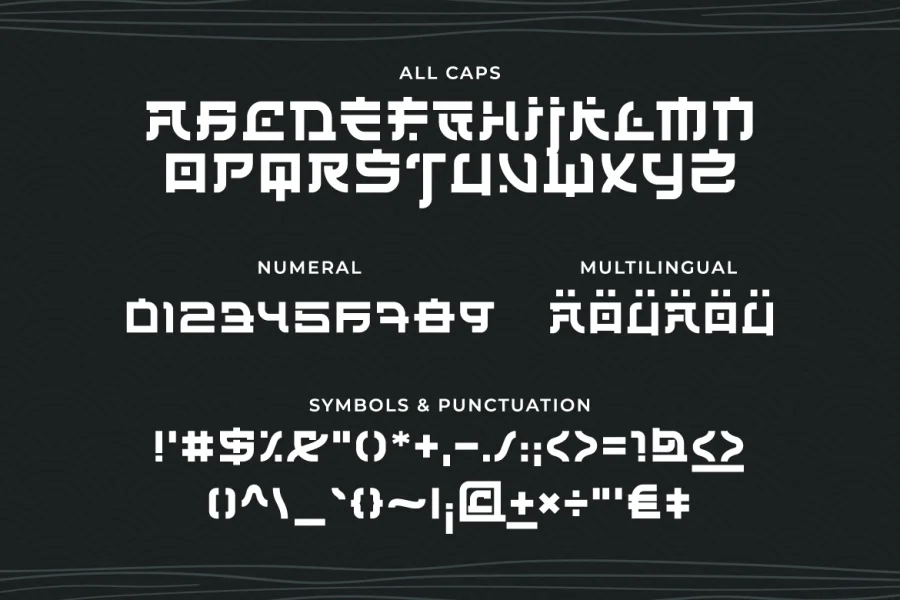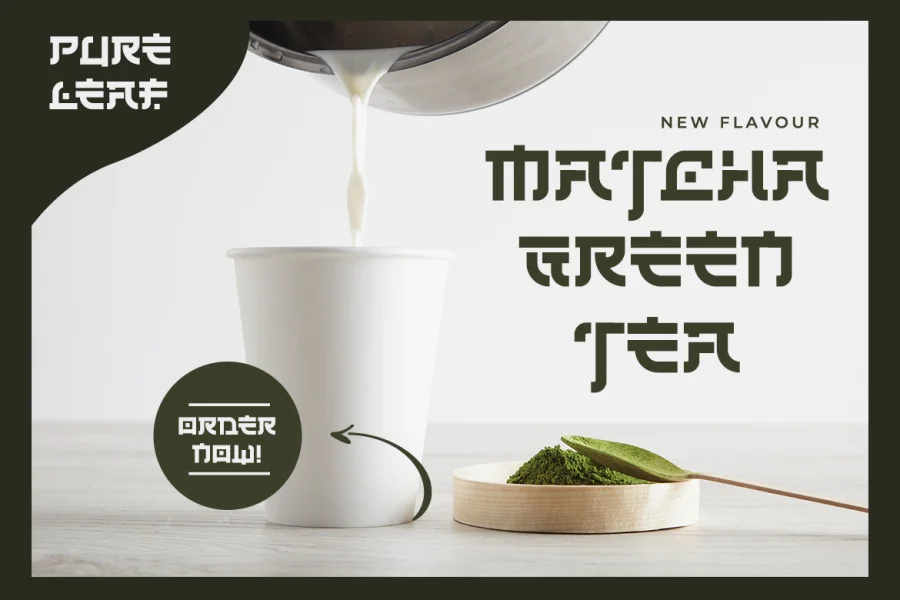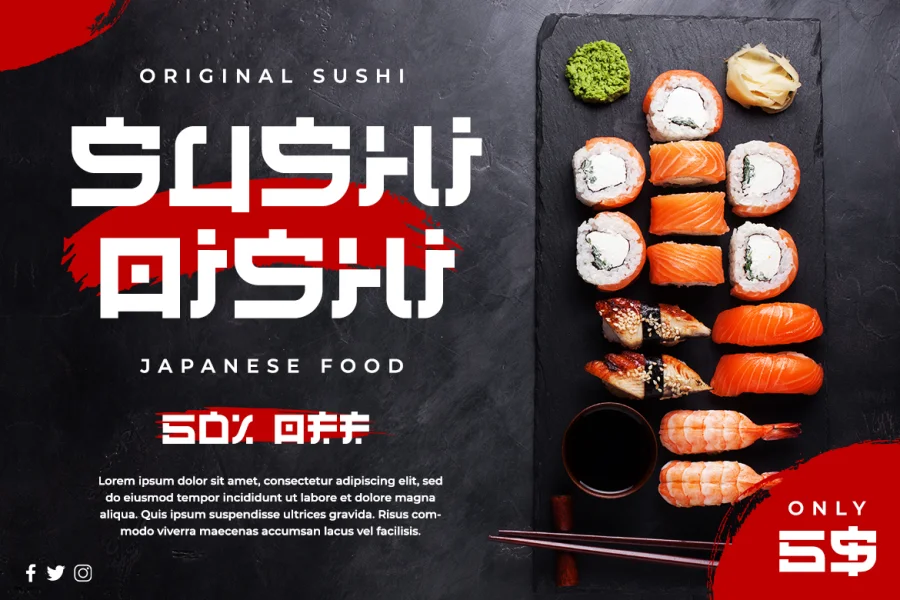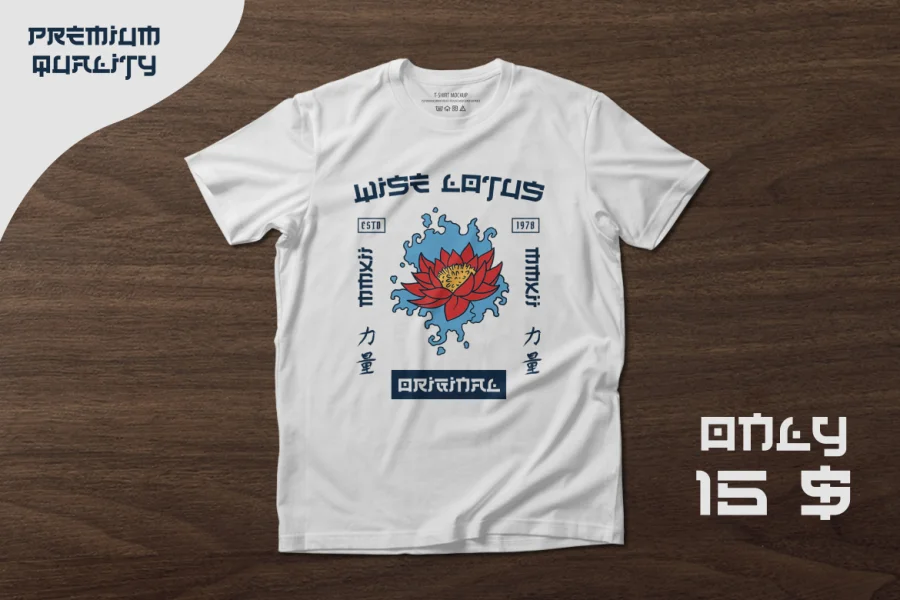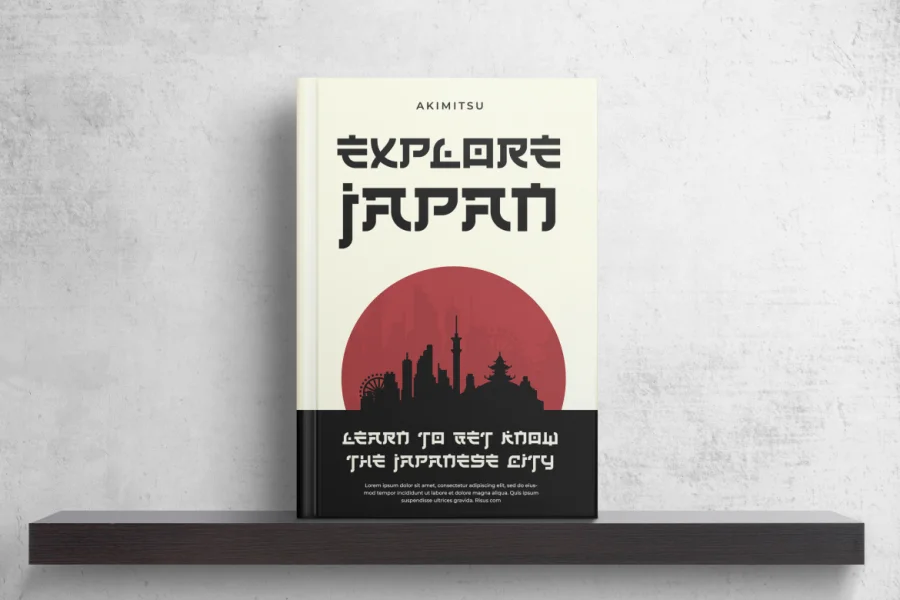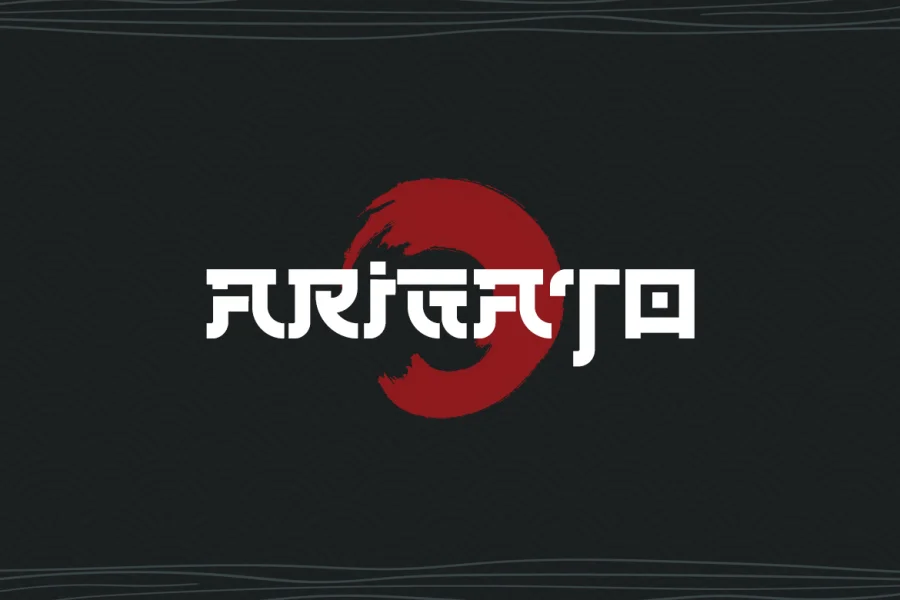
Renji is an simple Japanese inspired display font. It has a great readability and will add a striking touch to any design! It will look awesome on any T-shirt, print, or restaurant brand!